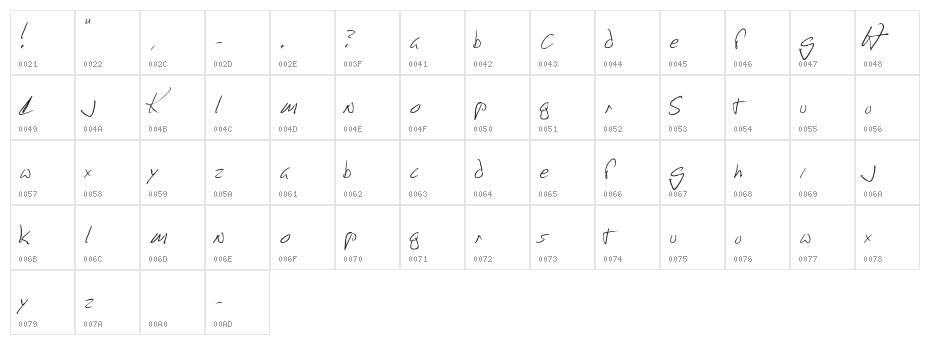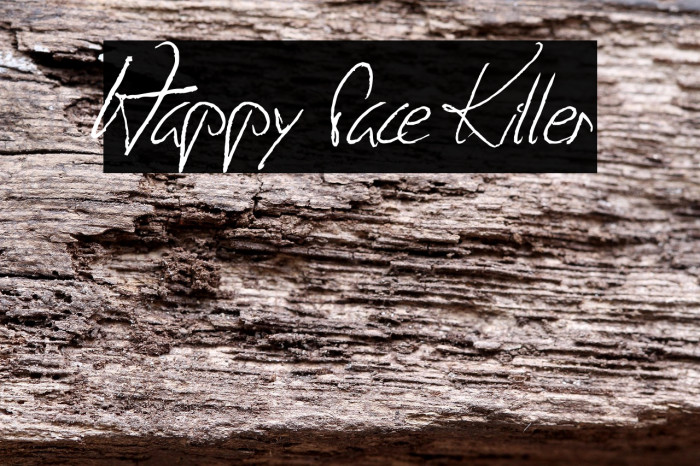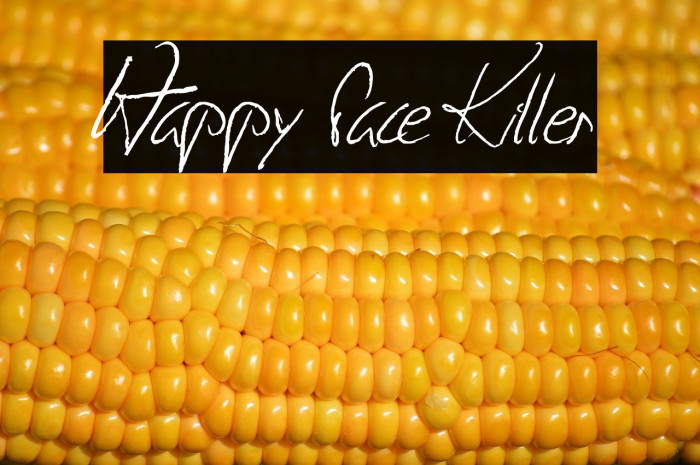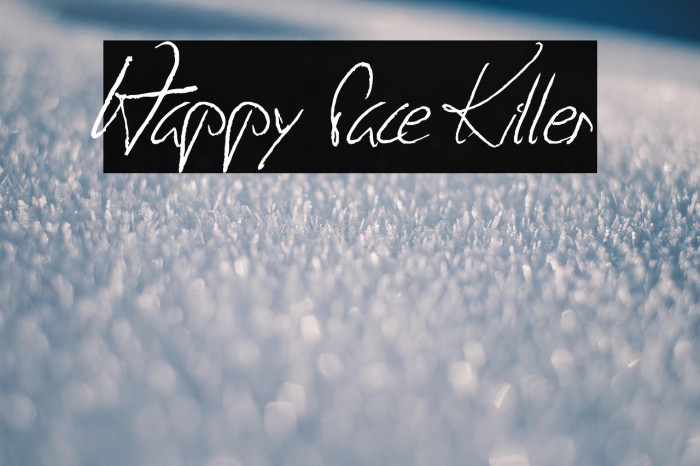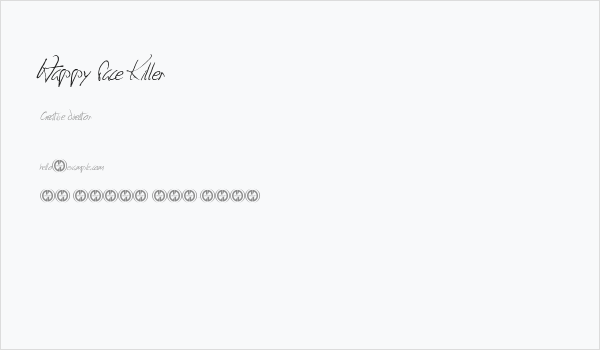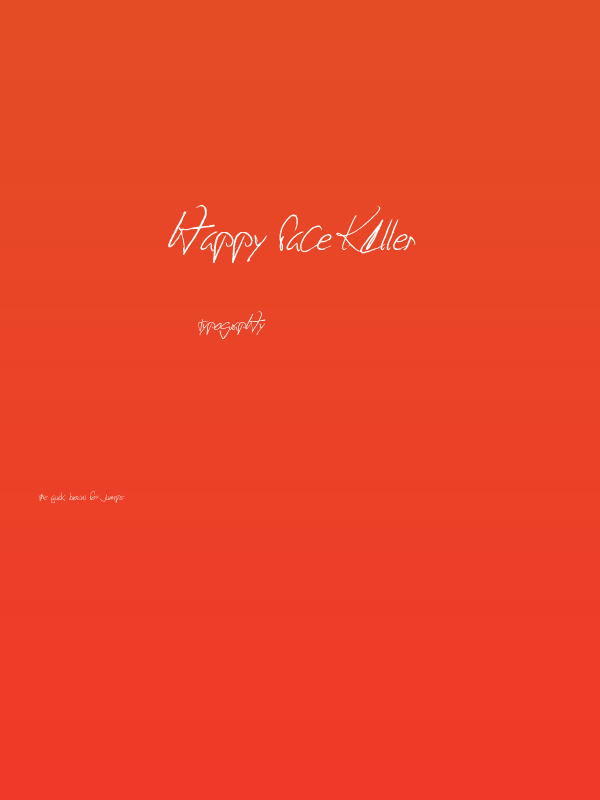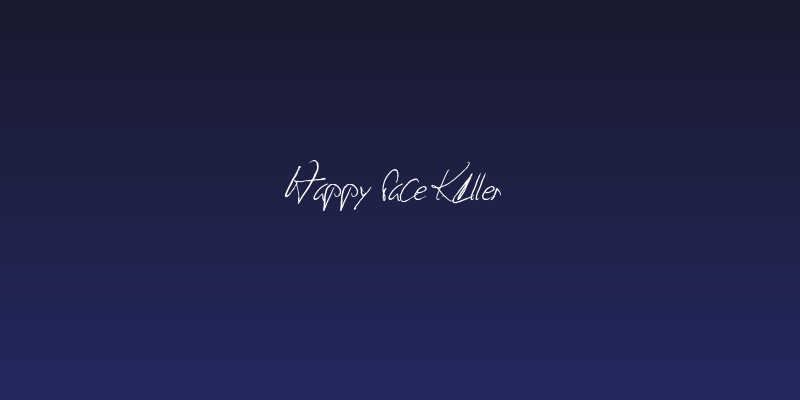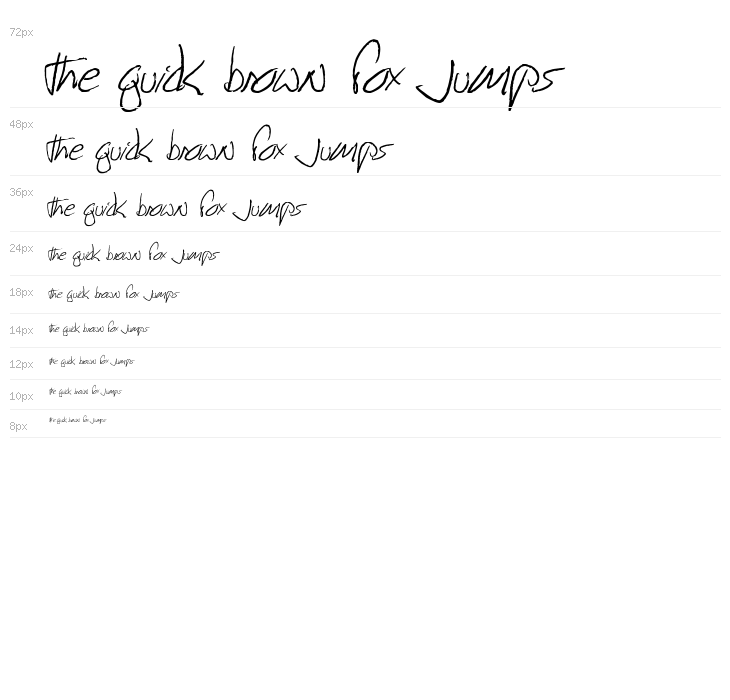
Happy Face Killer Font
Happy Face Killer Description
This font embodies a raw, expressive style reminiscent of handwritten notes with a personal touch. The characters are fluid and dynamic, with varying stroke widths that give it an organic feel. The letters are slightly slanted, adding to the casual and informal appearance. The uppercase and lowercase letters blend seamlessly, maintaining a consistent flow throughout. The overall look is edgy and artistic, making it suitable for creative projects that require a personal or emotional impact.
| Overall Style | Artistic, Casual |
| Use Case | Logos, Creative projects, Personal notes |
| Proposed Projects | Ideal for personal branding, artistic projects, greeting cards, and creative posters. |